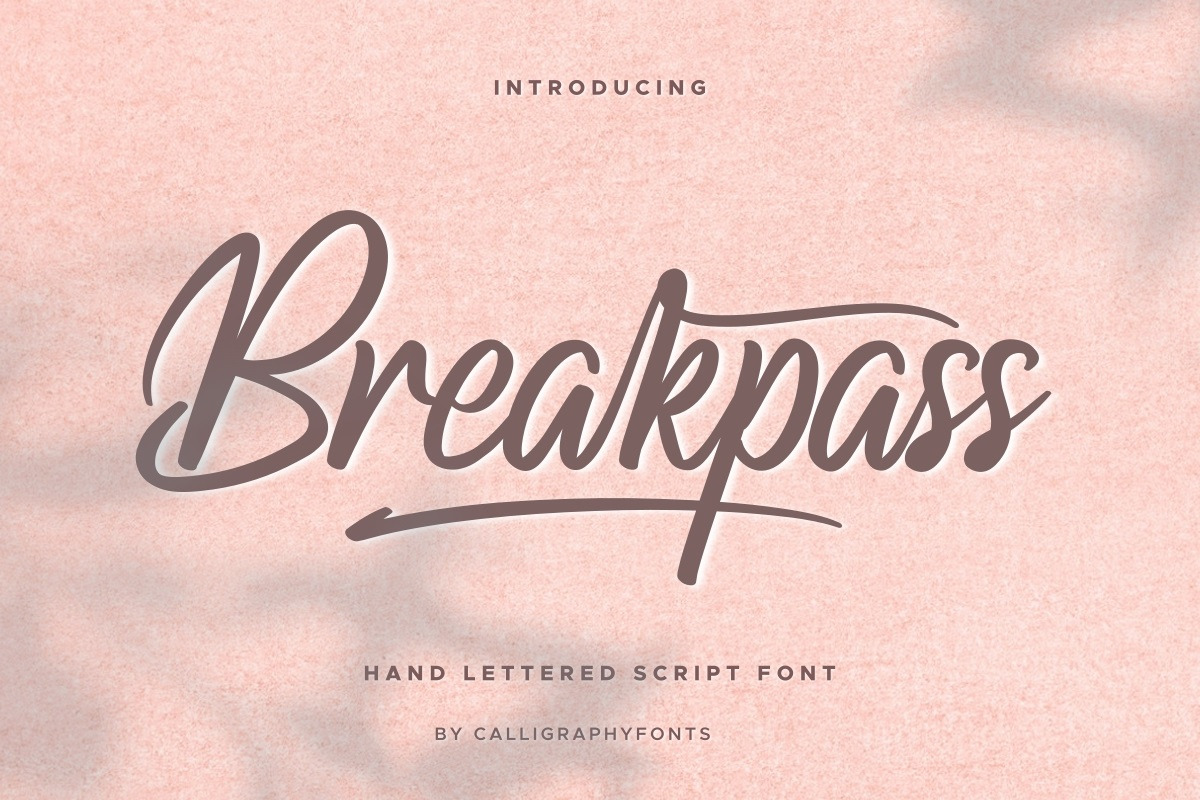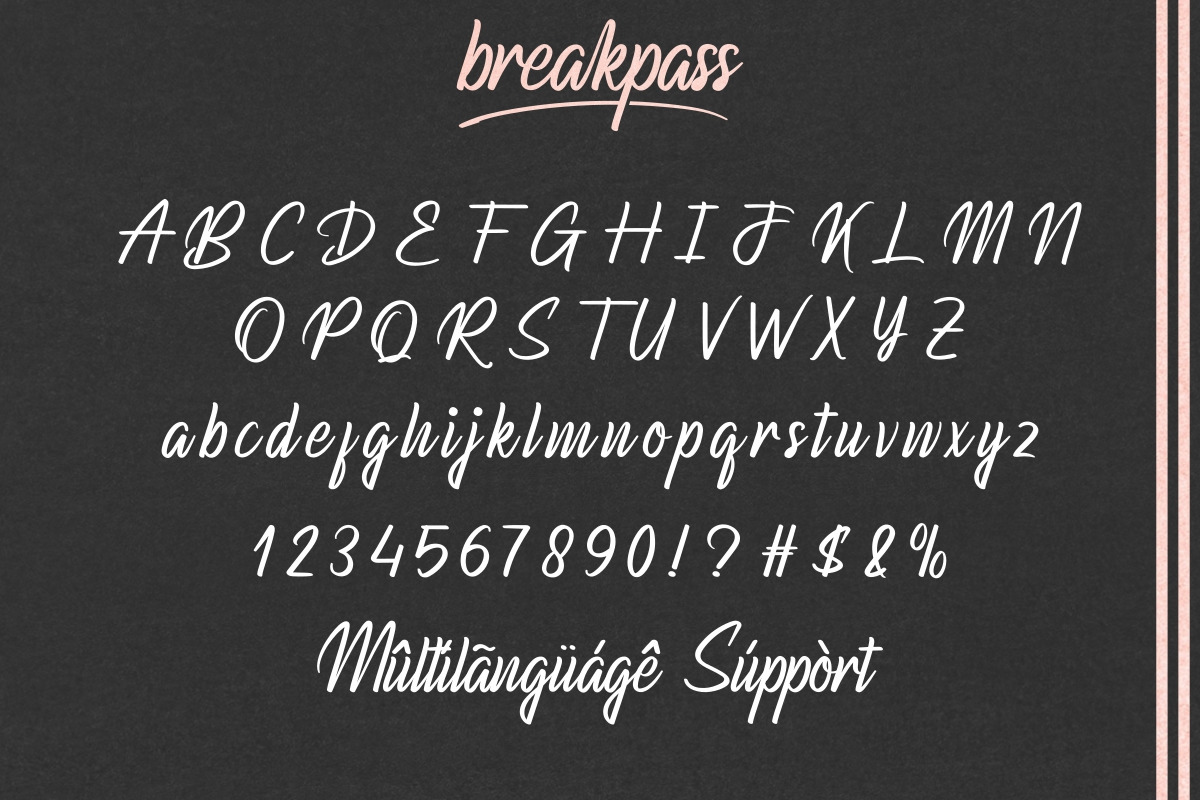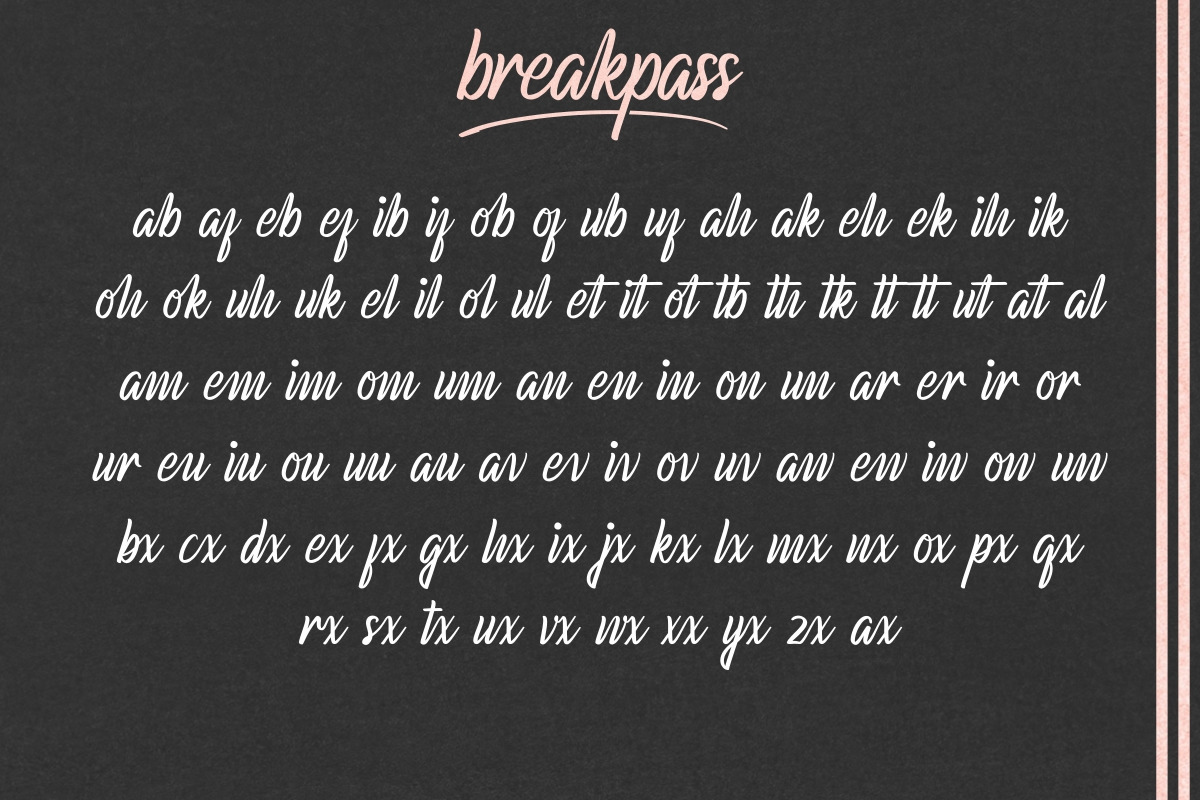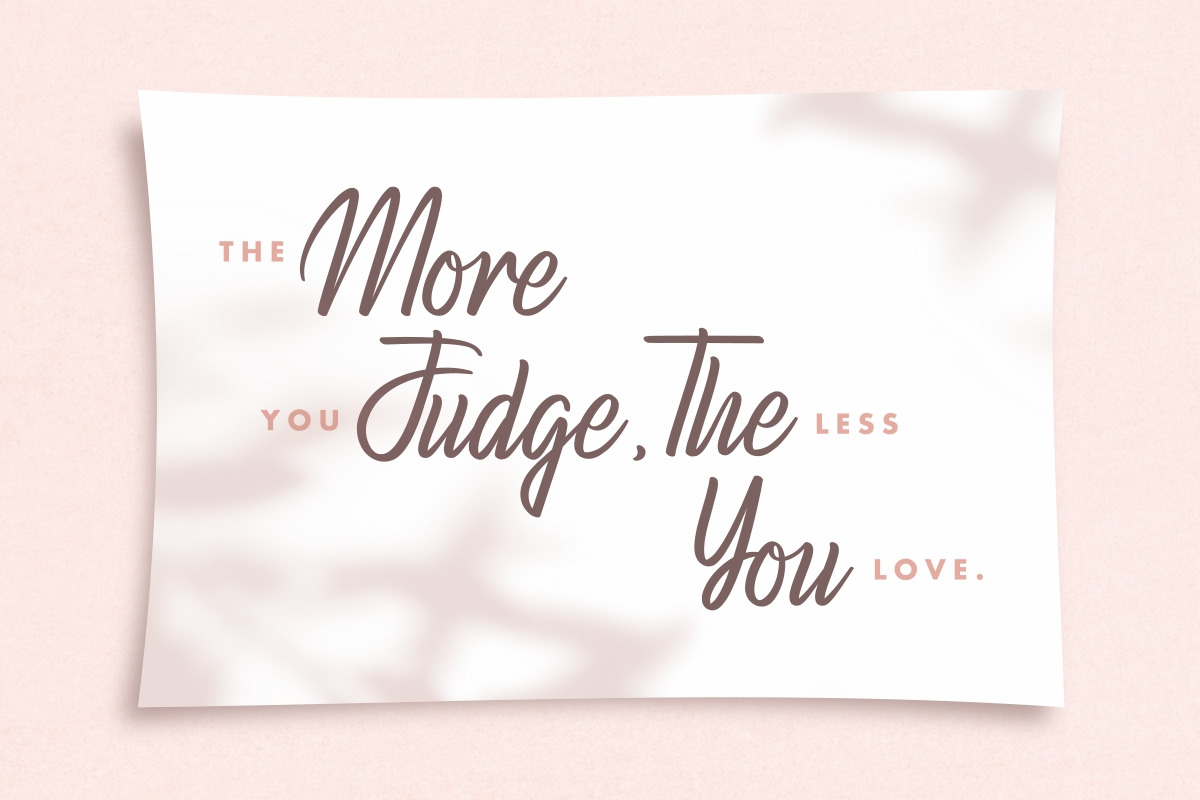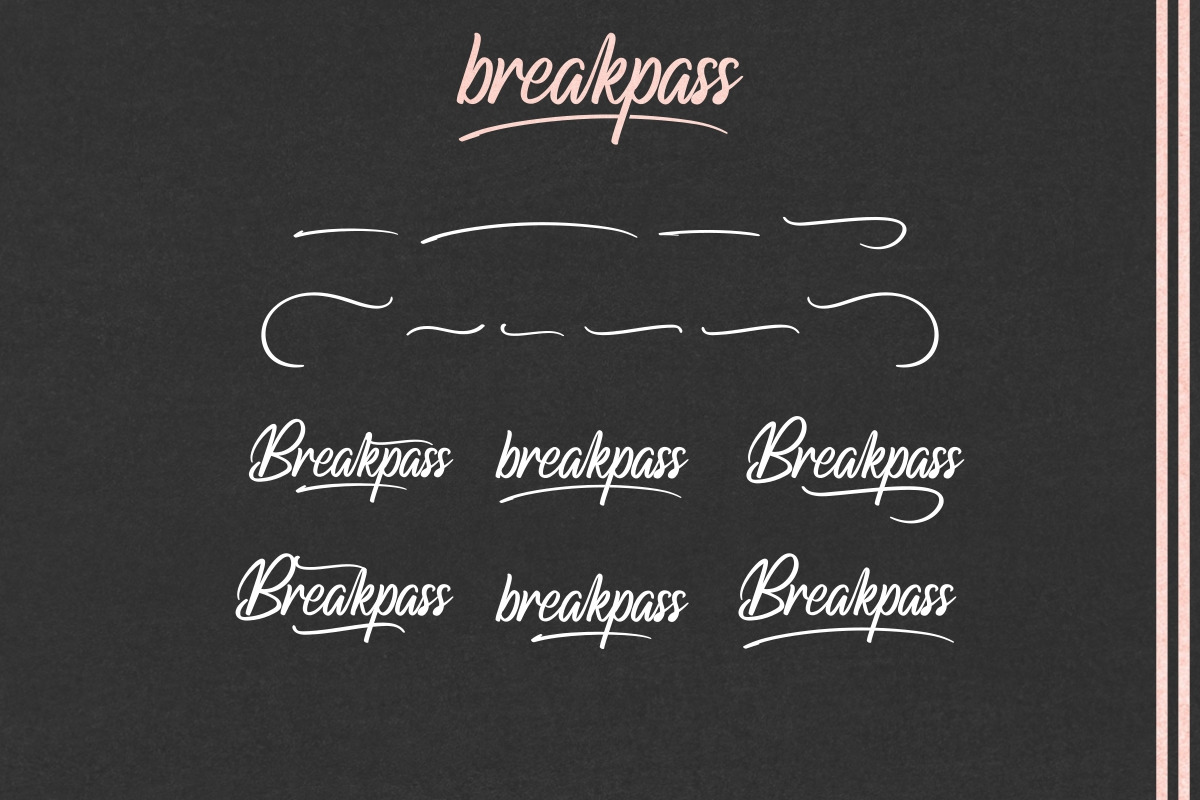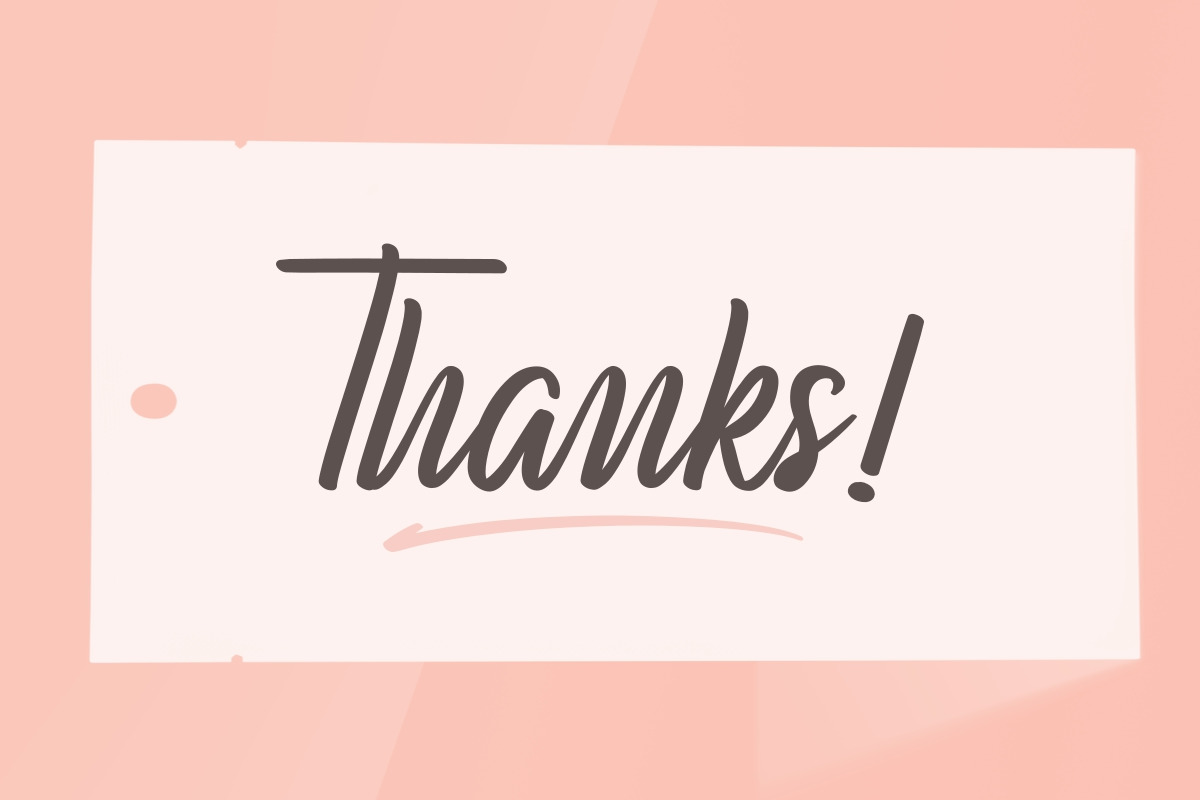
Breakpass Hand Brush Font
Breakpass Font is a Hand brush calligraphy font. The style of this font are contemporary, oldschool, elegant, luxury and classic brush font. Breakpass Font comes with two different styles : Brush handwriting and signature font. The characters are elegant, sophisticated, stylish, textured and classic calligraphic style.